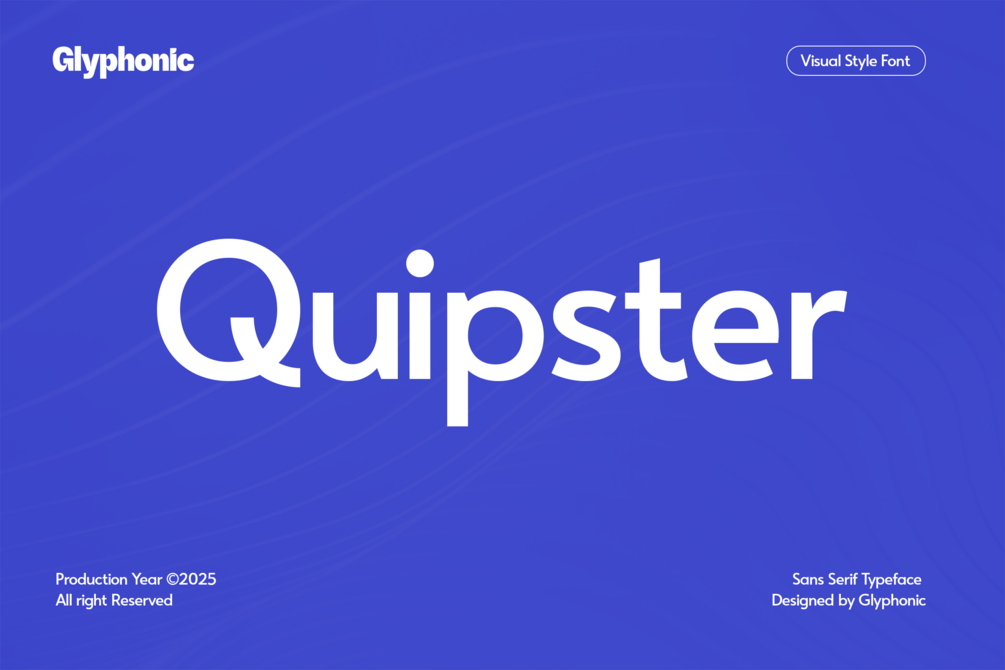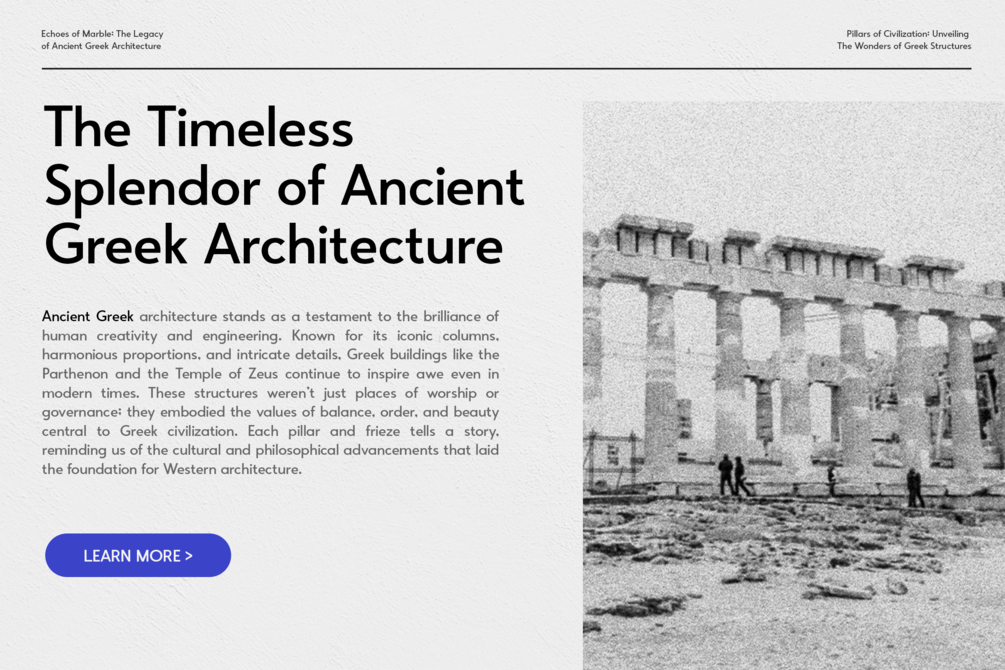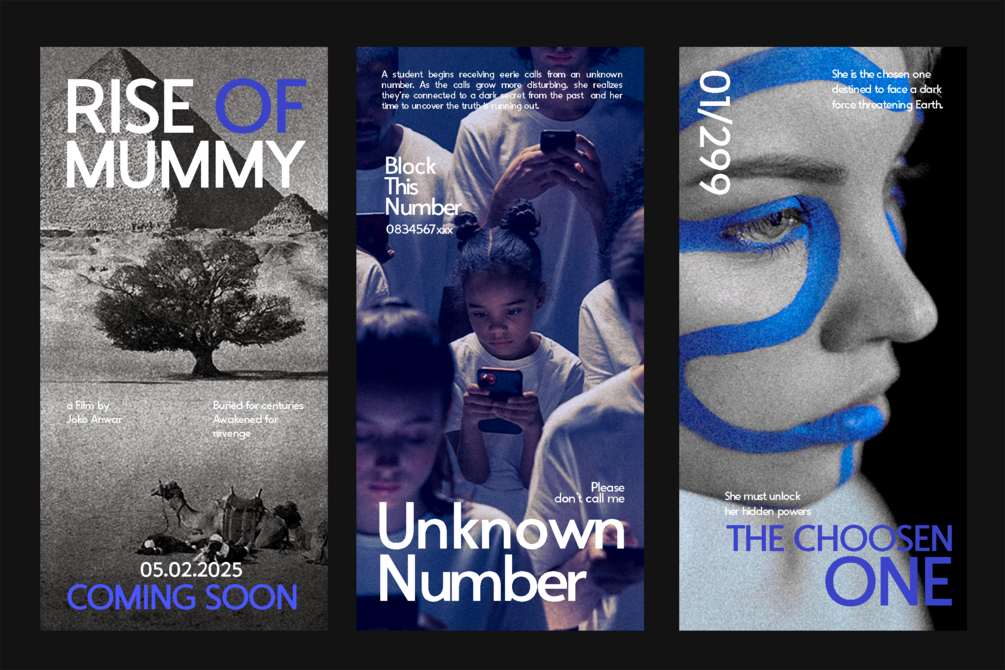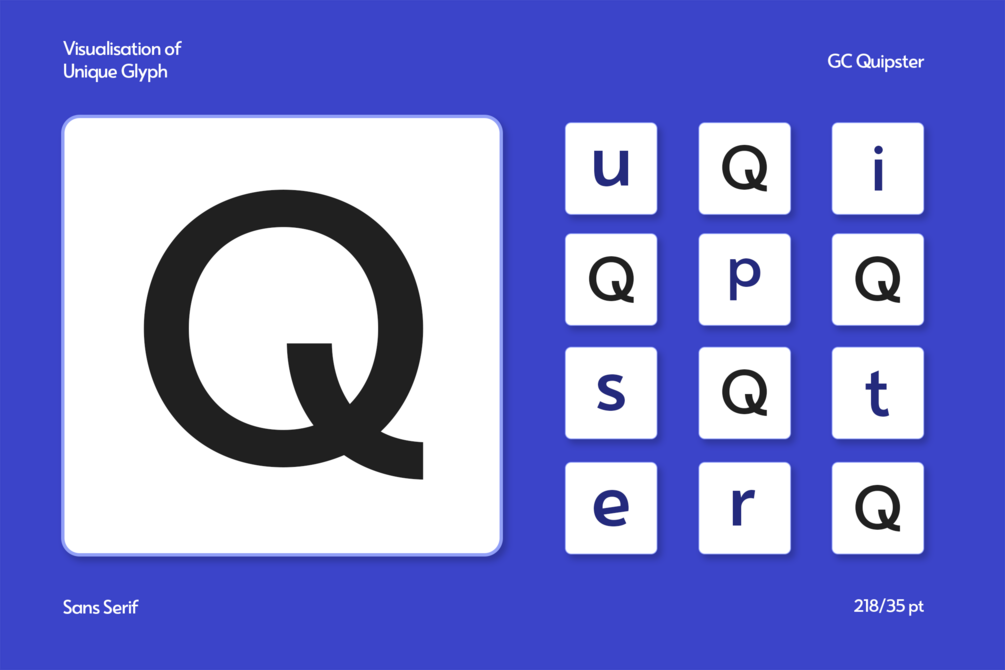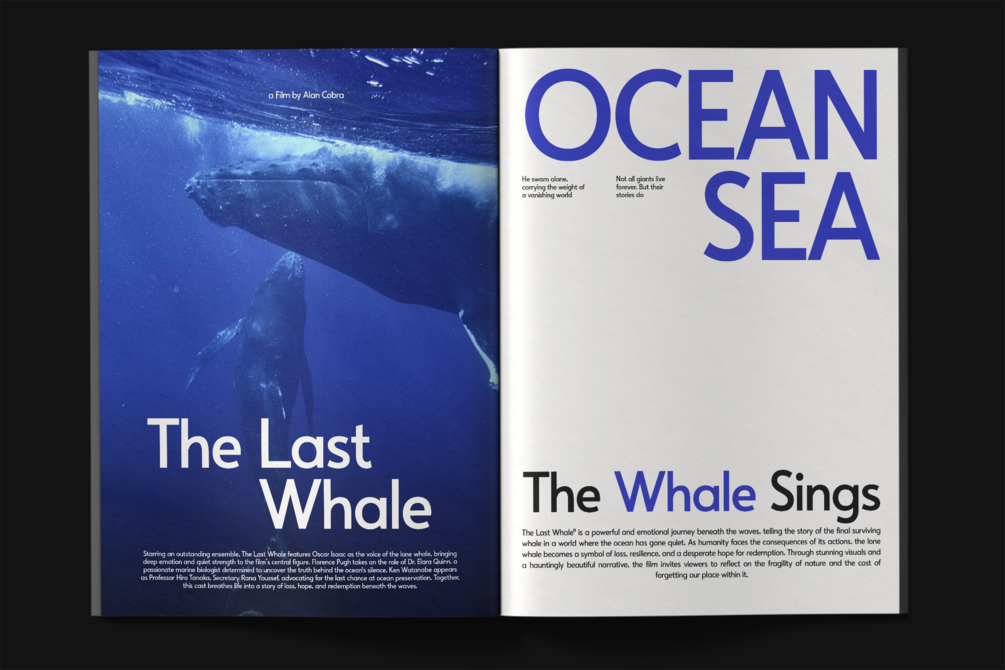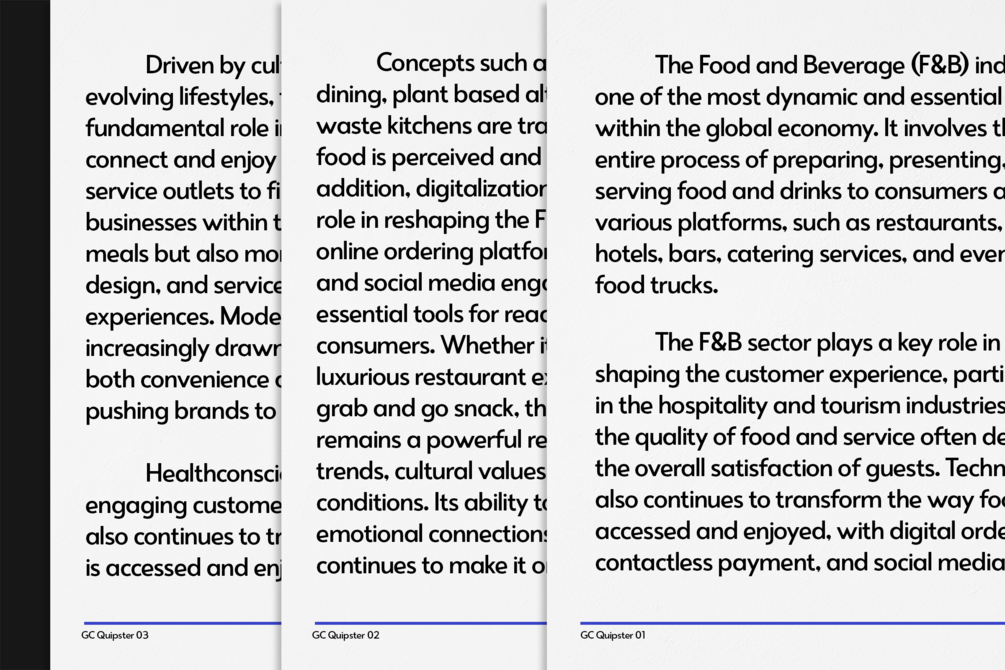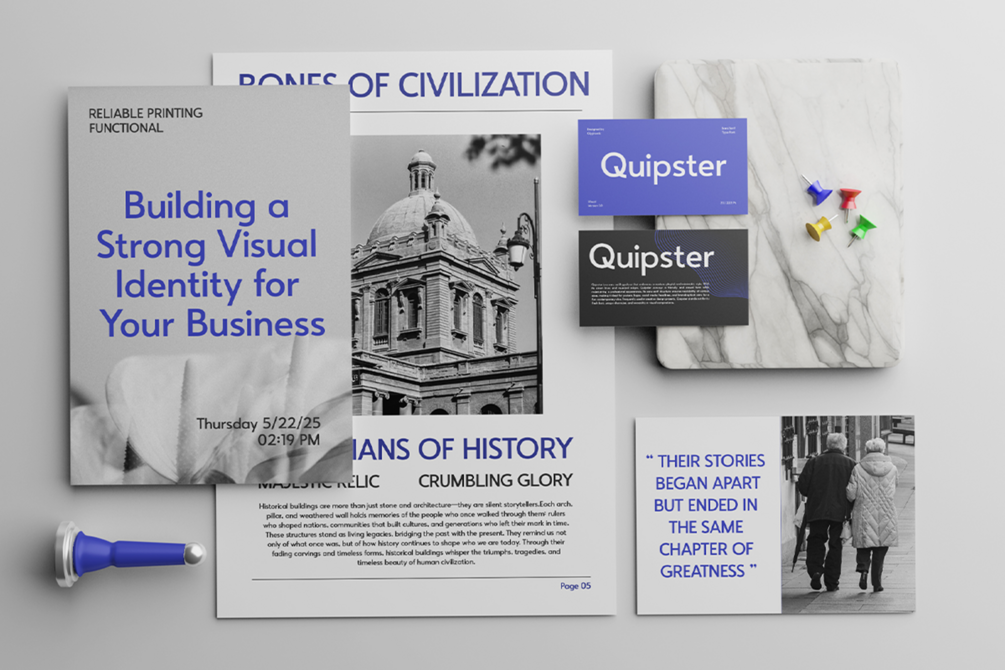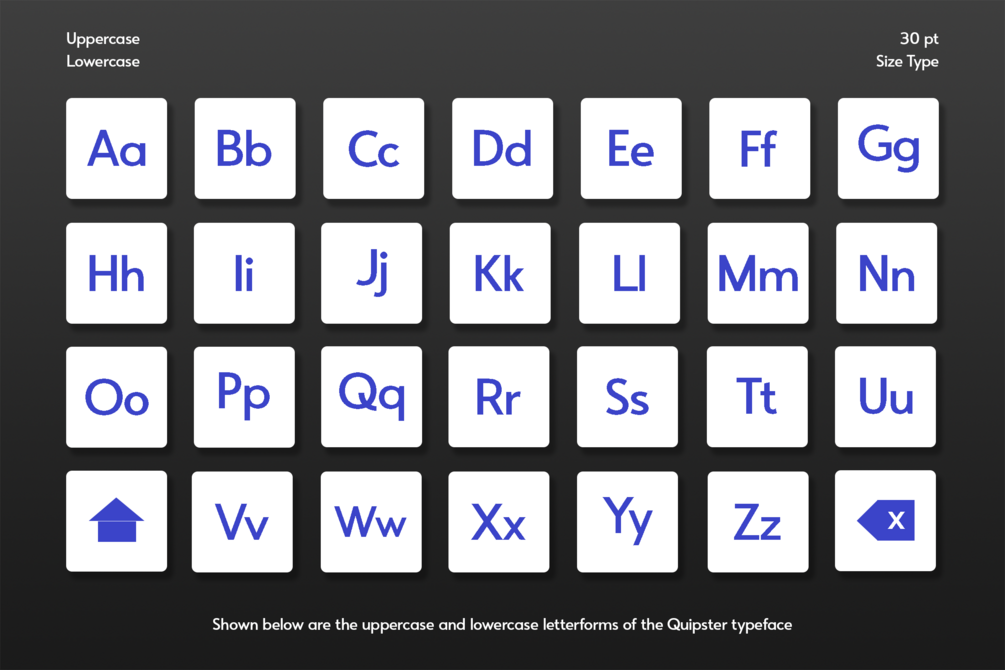
Quipster - Modern Sans Font
Quipster is a Modern Sans Font that blends modern elegance with future style.
Perfectly suited for headlines, branding, logos, packaging, editorial layouts, it’s crafted to leave a lasting impression.
With its high contrast strokes, modern sans, and future style, Quipster brings personality and sophistication to any design.
Whether you're designing for fashion, lifestyle, or artistic visuals, this typeface offers versatility and refined style.
Make your design bold, refined, and timeless with Quipster.